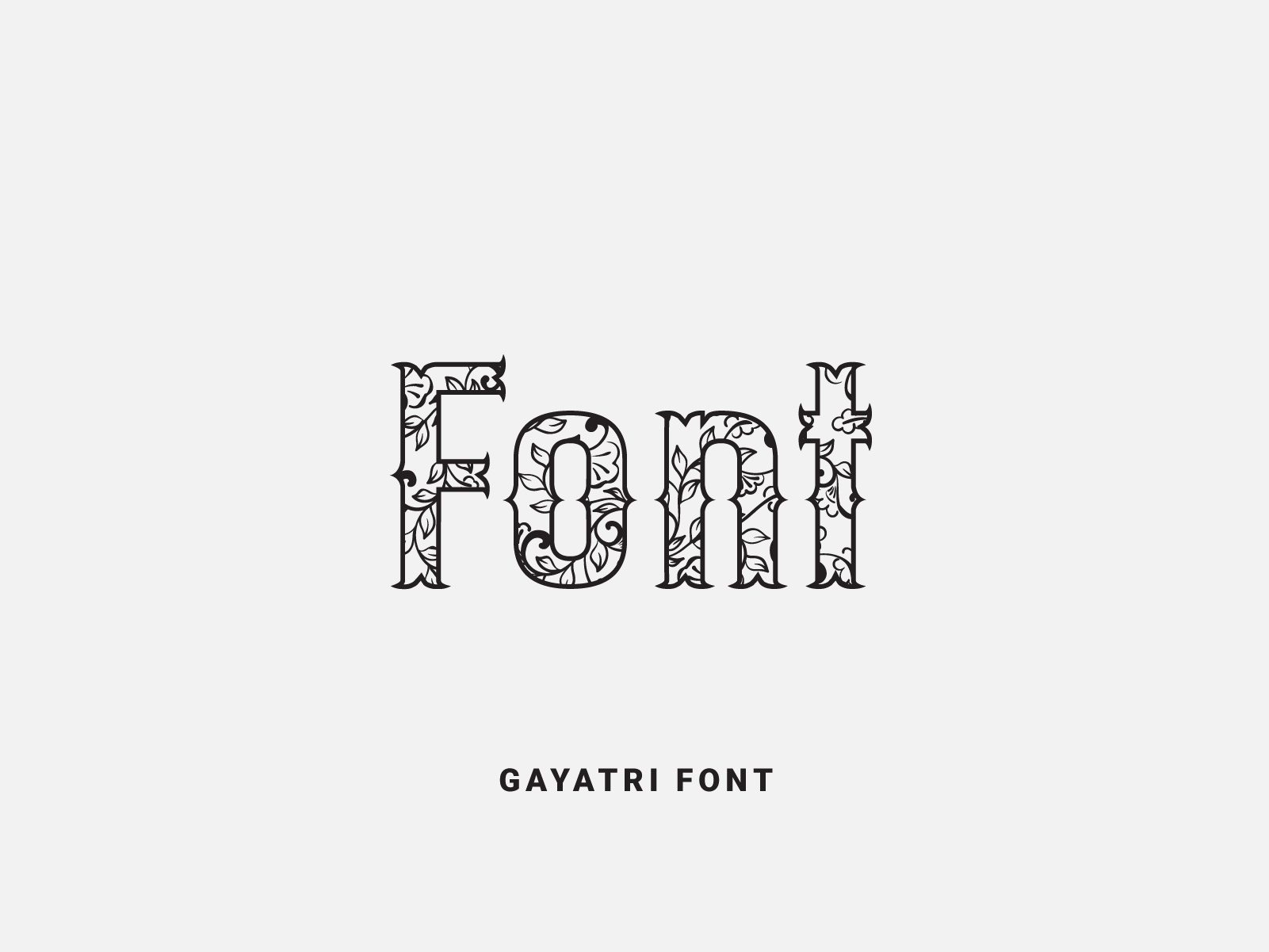
Gayatri Font
Gayatri is Blackletter font inspired by shape Swirl, with a unique and natural feel. It is perfect for invitations, posters, logos, book covers and much more!